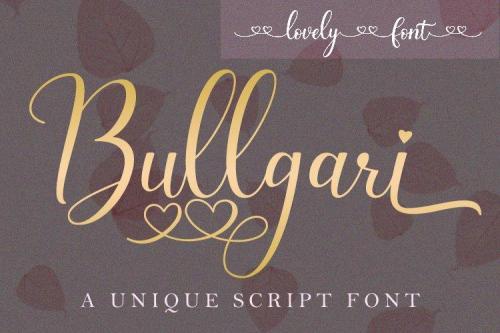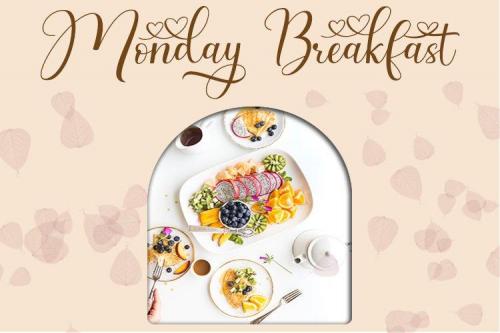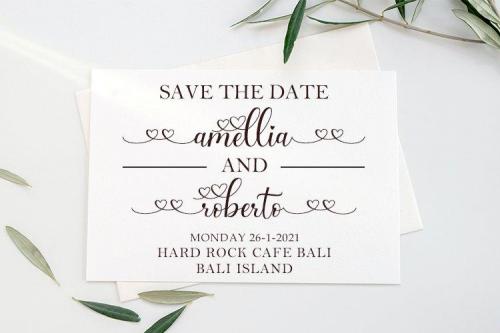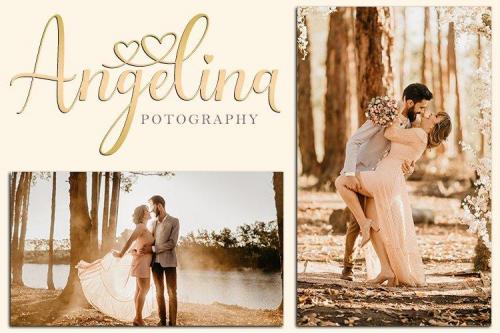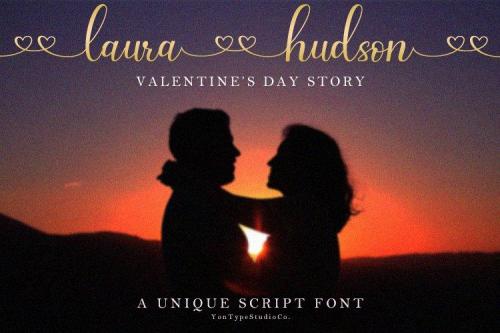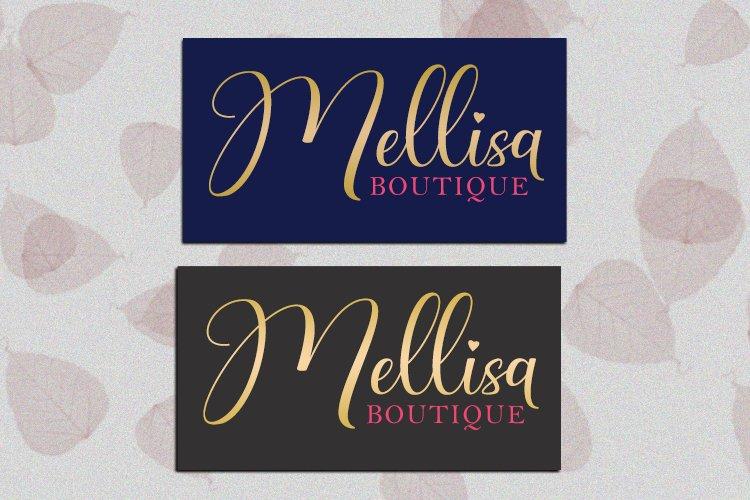
Bullgari Font
Bullgari is an elegant script font with a contemporary atmosphere and impeccable form, inspired by timeless classic calligraphy. Not too thin and not too thick, balanced and varied, this font was designed to enhance the beauty of your projects.